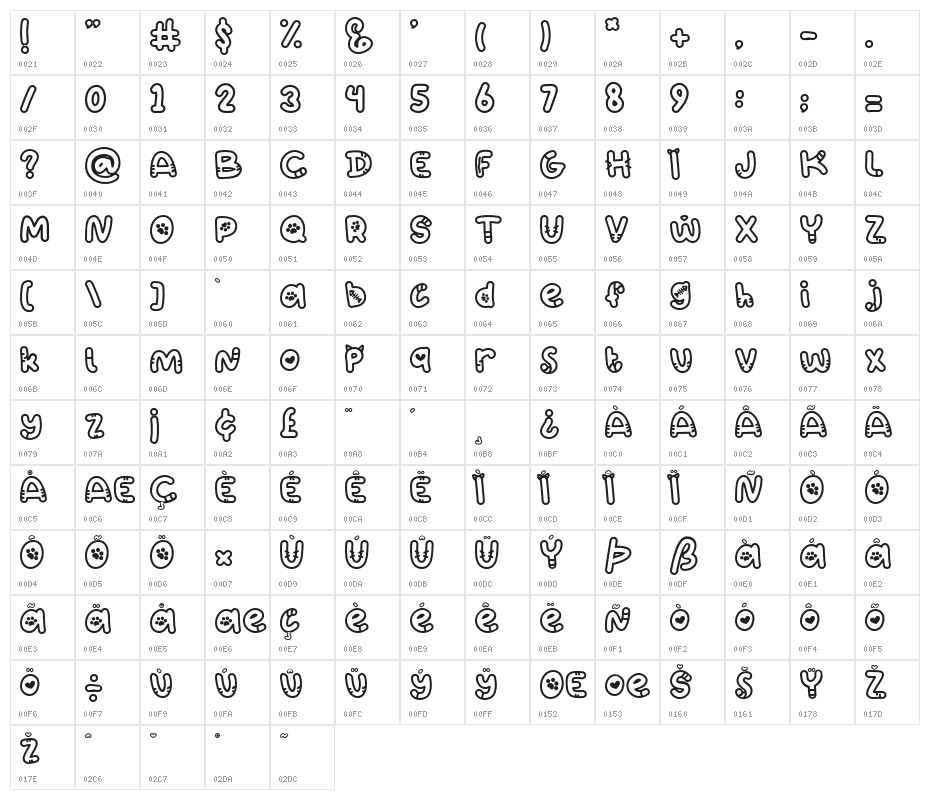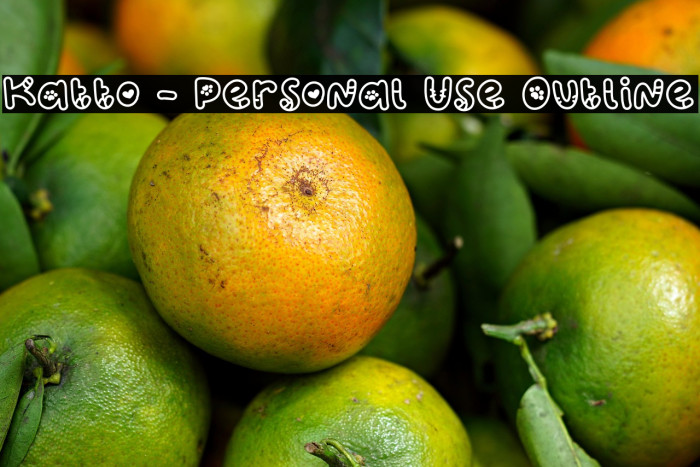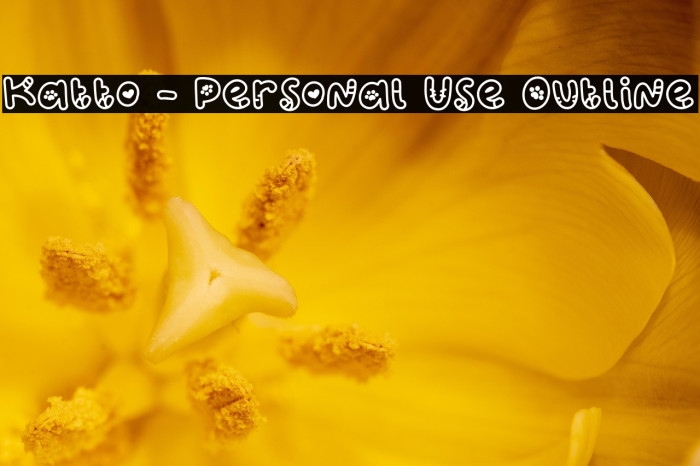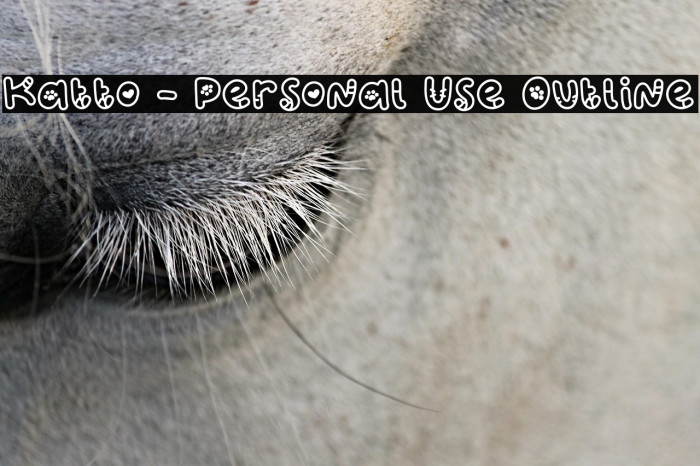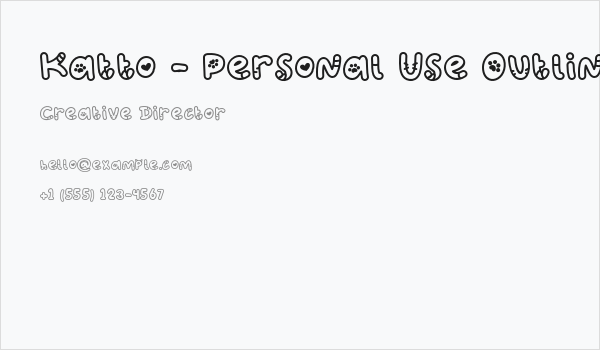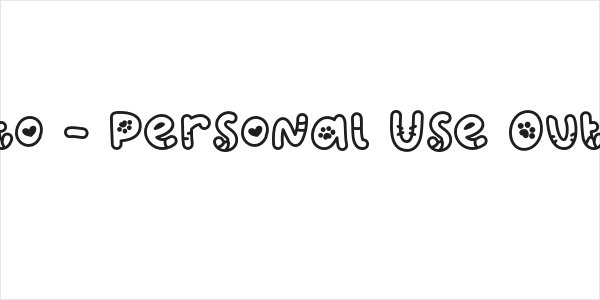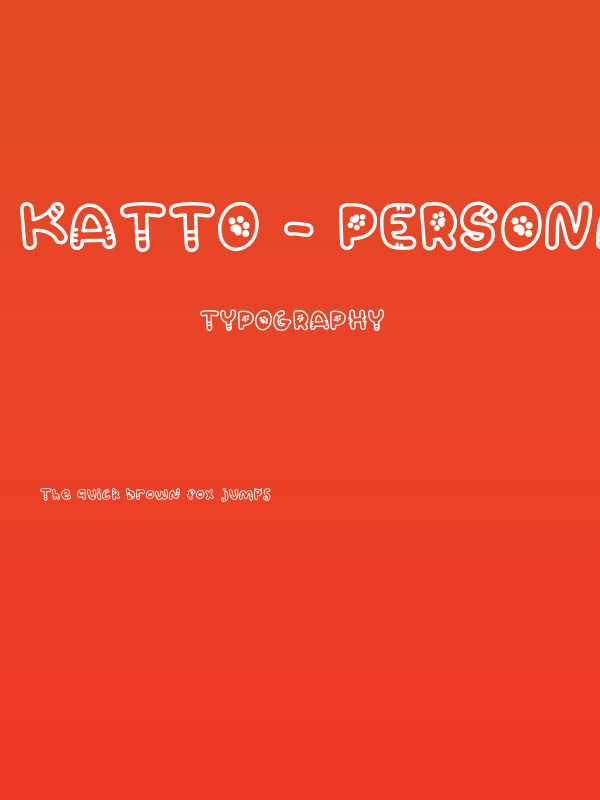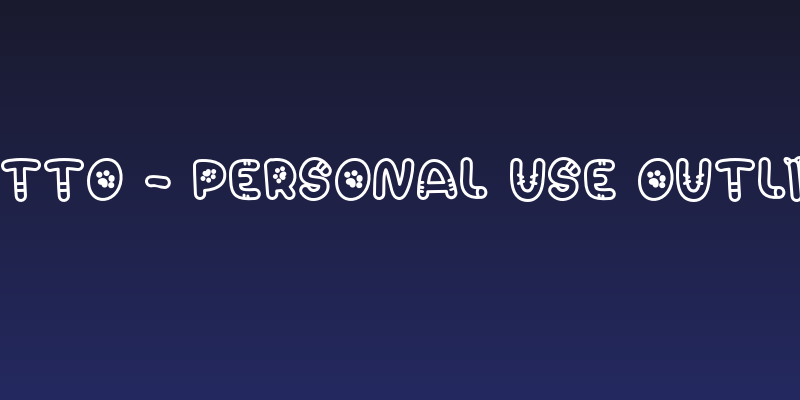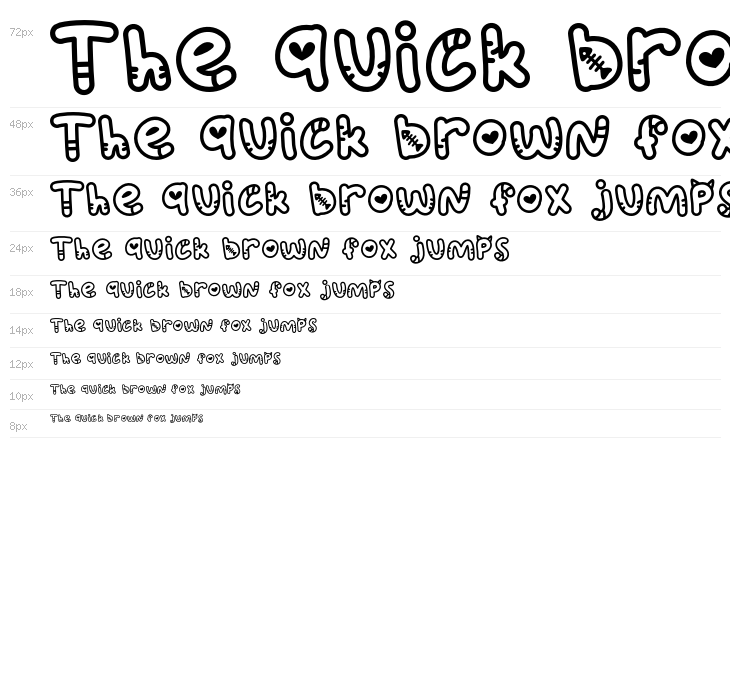
Katto - Personal Use Outline Font
Katto - Personal Use Outline Description
This playful and quirky font features bold, rounded letters with a unique outline style. Each character is adorned with whimsical patterns, such as stitches and dots, giving it a handmade, crafty appearance. The font maintains a consistent thickness throughout, with a slightly irregular shape that adds to its charm. It is highly decorative, making it ideal for creative projects that require a fun and engaging visual element. The numbers and special characters follow the same design principles, ensuring a cohesive look across all text elements.
| Proposed Projects | Ideal for children's book covers, playful posters, greeting cards, and craft projects. |